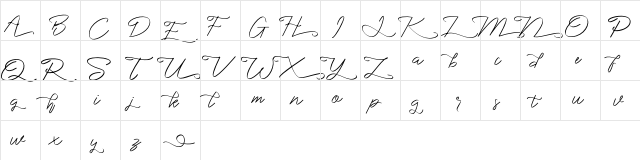
marikita Regular
Design Context for marikita Typeface
marikita is a composed and adaptable typeface that performs quietly and consistently across a wide range of design contexts.